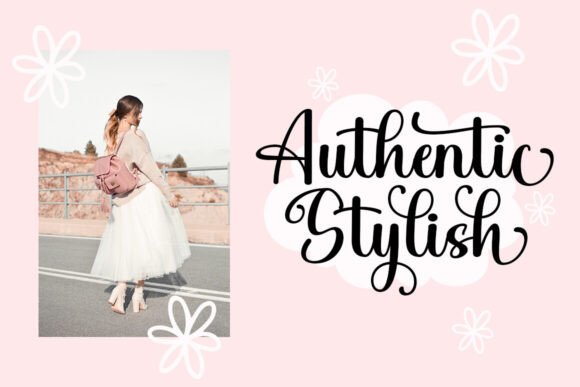
Creative Quench Font
Creative Quench Script is a new modern script font with baseline. Trendy and feminine style. Creative Quench looks lovely on wedding invitations, thank you cards, quotes, greeting cards, logos, business cards and more. Perfect for using in ink or watercolour. Including initial and terminal letters, alternates and multiple language support.